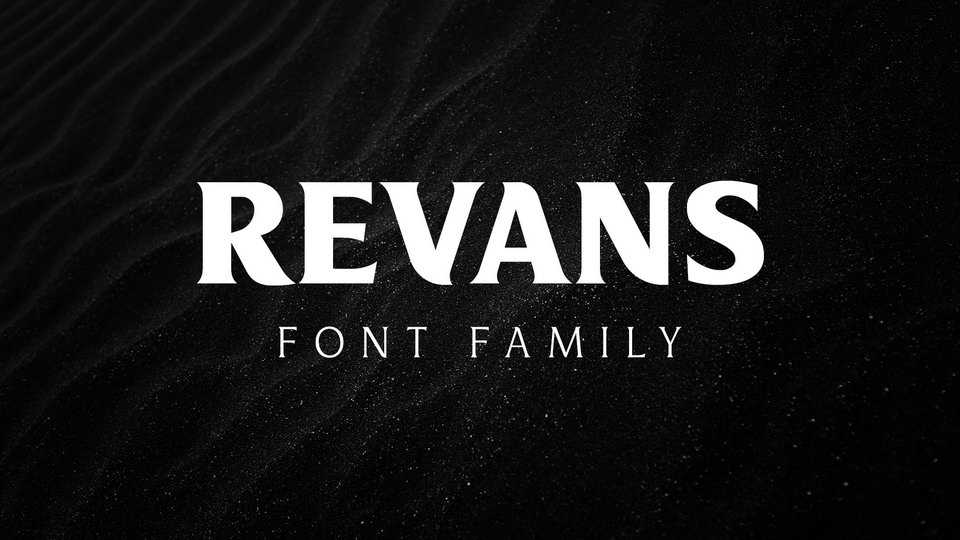
Download Revans font, carefully designed with a solid, luxurious serif typeface with refined look & feel. Revans is great for logos, branding, magazines, social media and other projects.